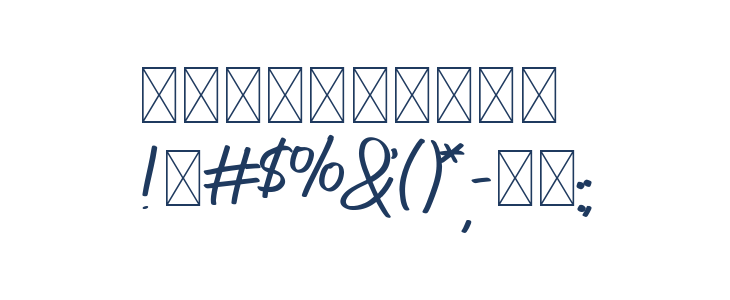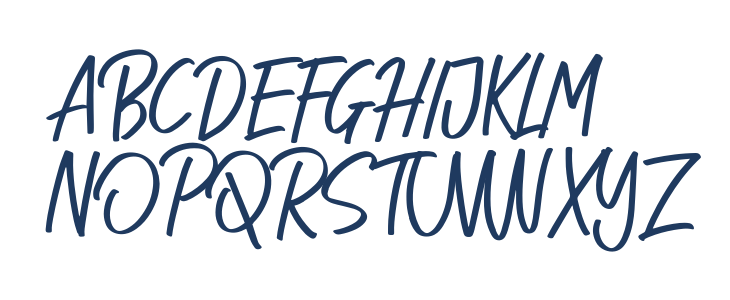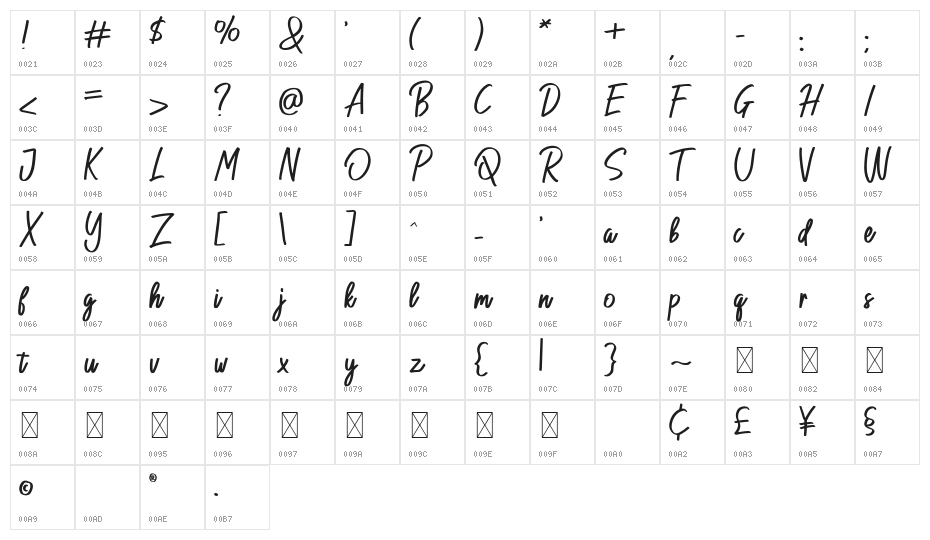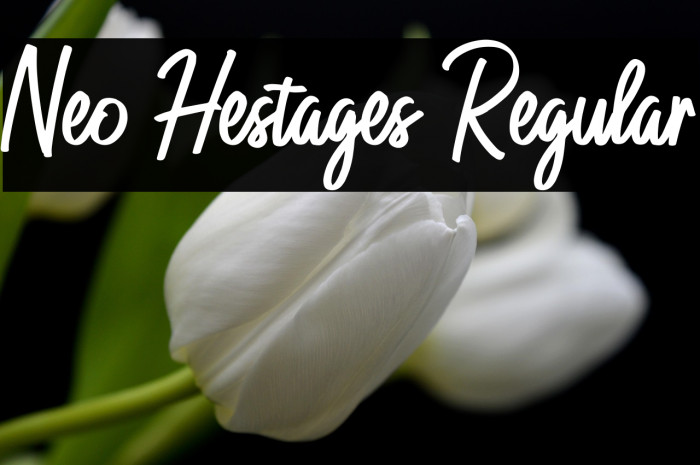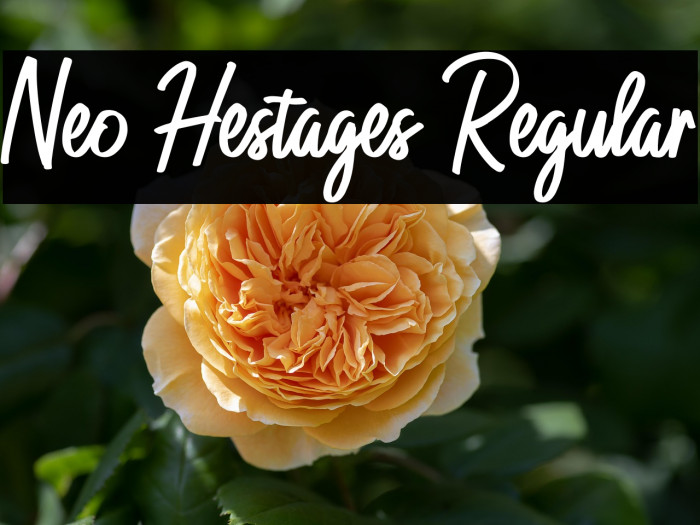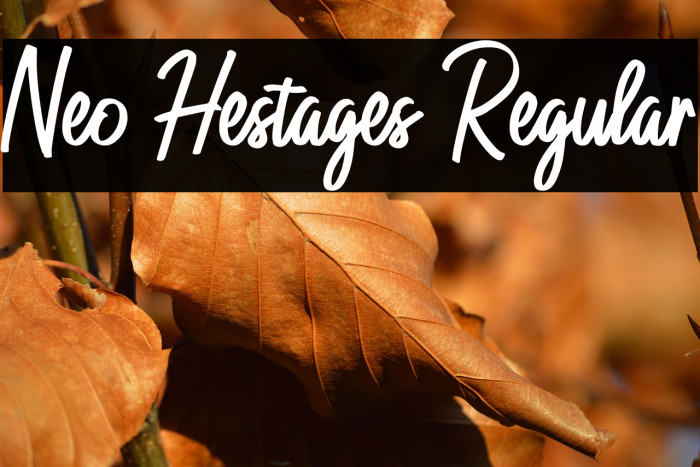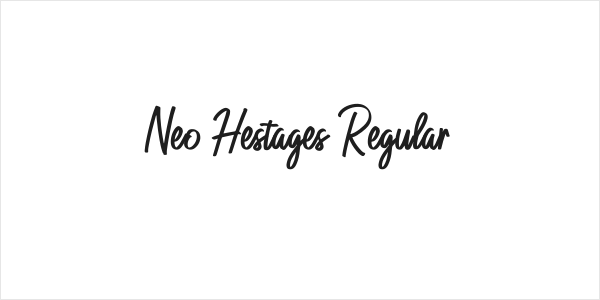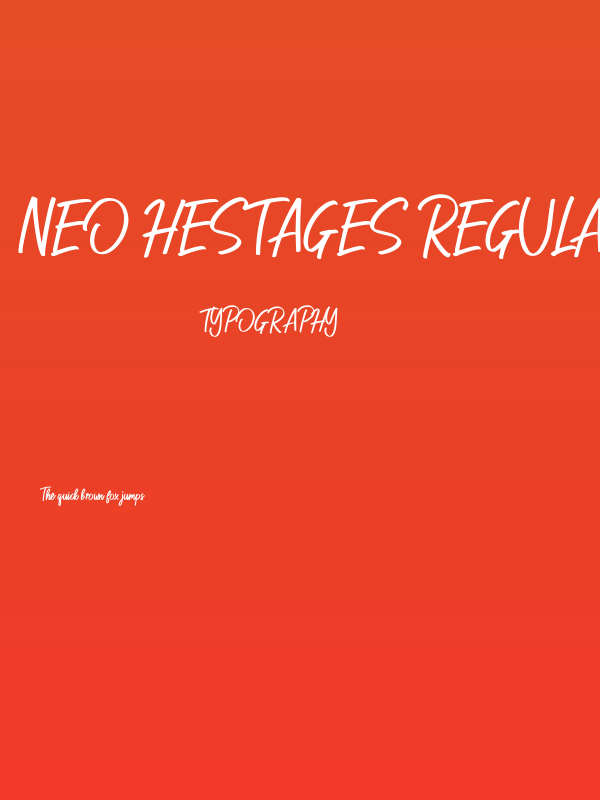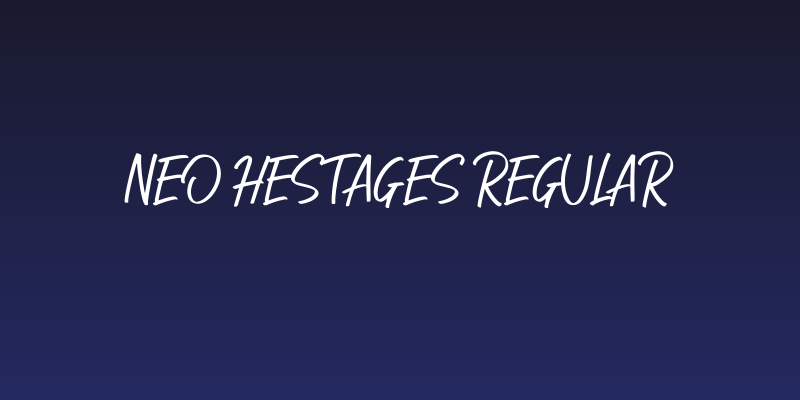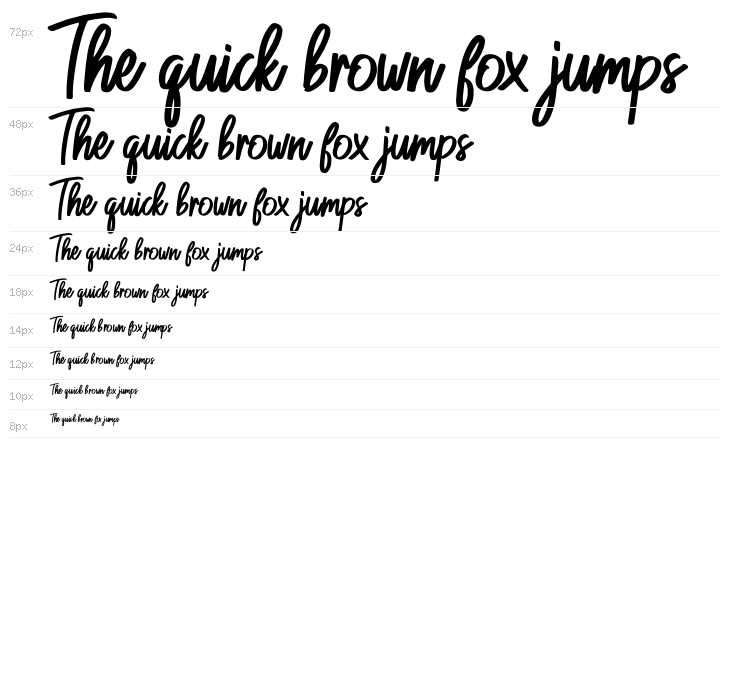
Neo Hestages Regular Font
Neo Hestages Regular Description
A casual, handwritten script font with energetic, flowing strokes and natural letter connections, mimicking expressive marker or brush pen writing. The characters are slightly slanted, with varying stroke thickness and playful, informal shapes.
| Overall Style | Casual, Modern, Expressive |
| Use Case | Logos, Headlines, Short quotes, Informal branding |
| Proposed Projects | Greeting cards, posters, social media graphics, branding for creative businesses, invitations. |